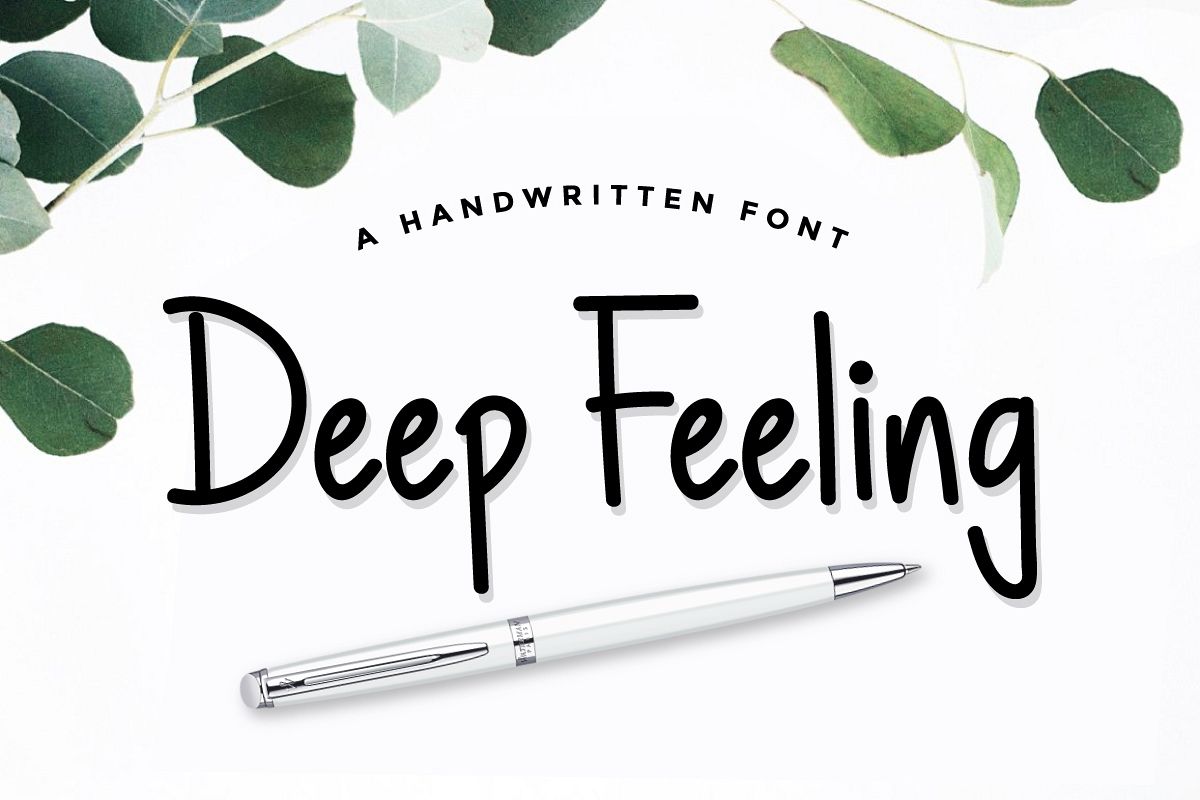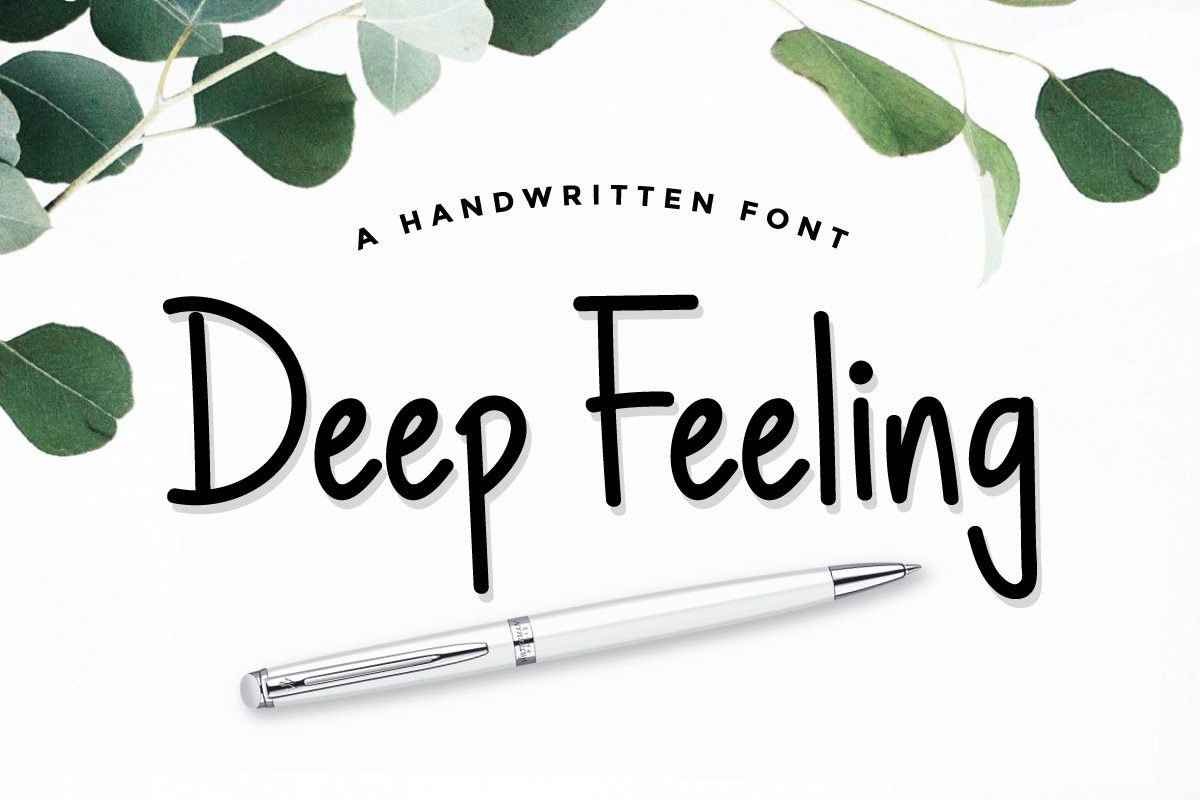
Deep Feeling
Introducing Deep Feeling Typeface - a handwritten font that is very fresh and unique style handmade. Deep Feeling Typeface is perfectly suited to logo, tationery, poster, apparel, branding, wedding invitation, card, tagline, layout design, and much more !!